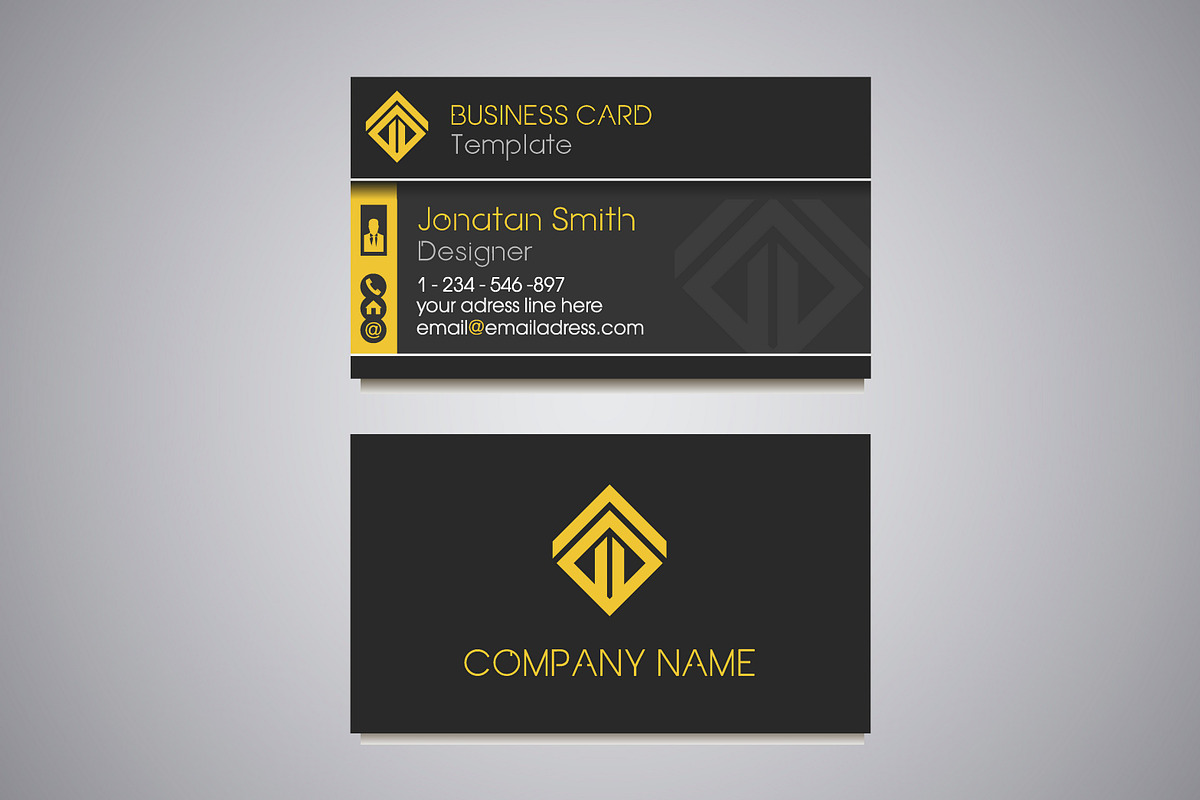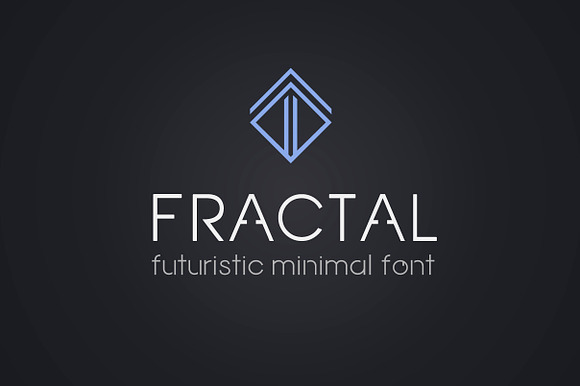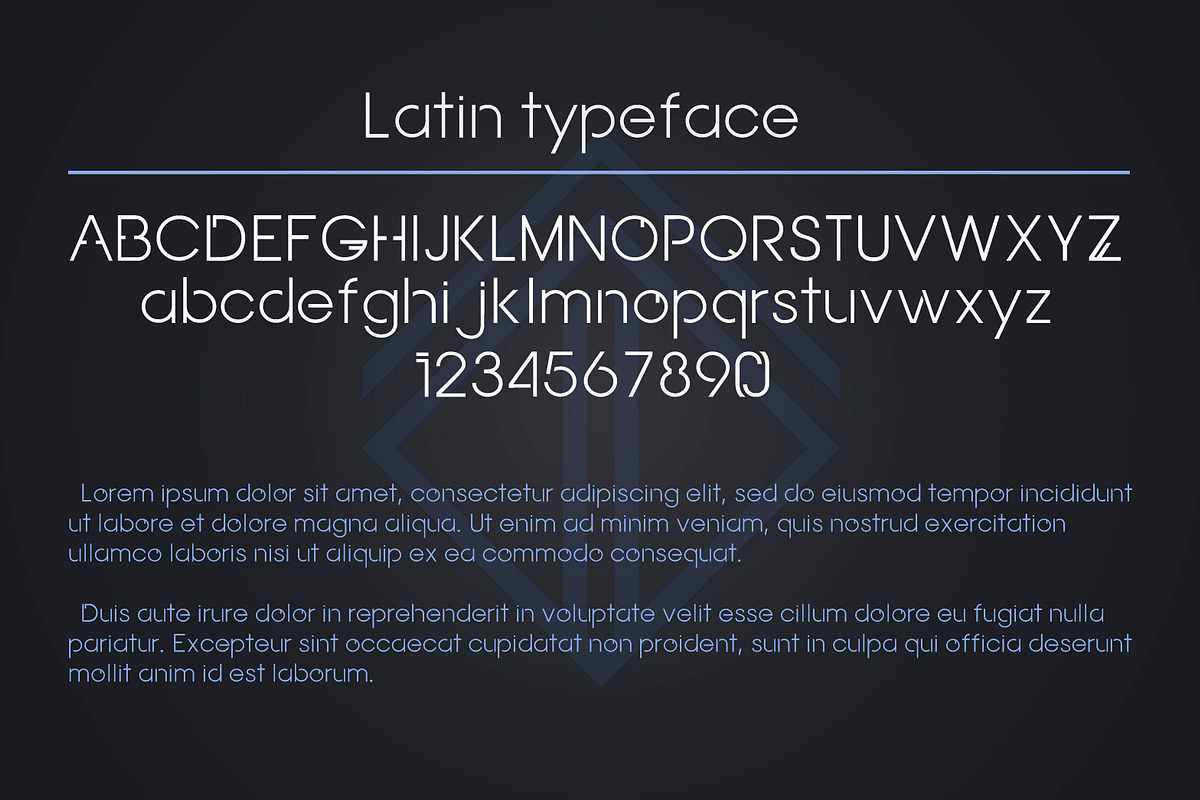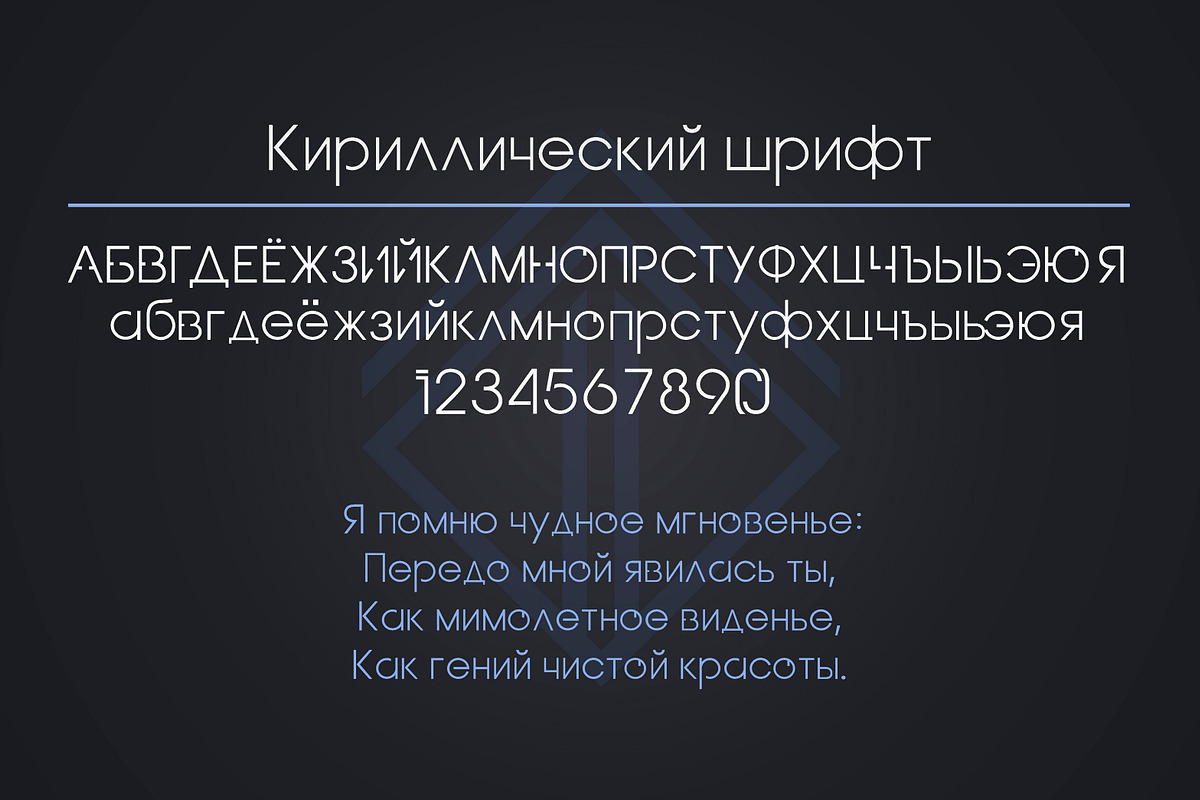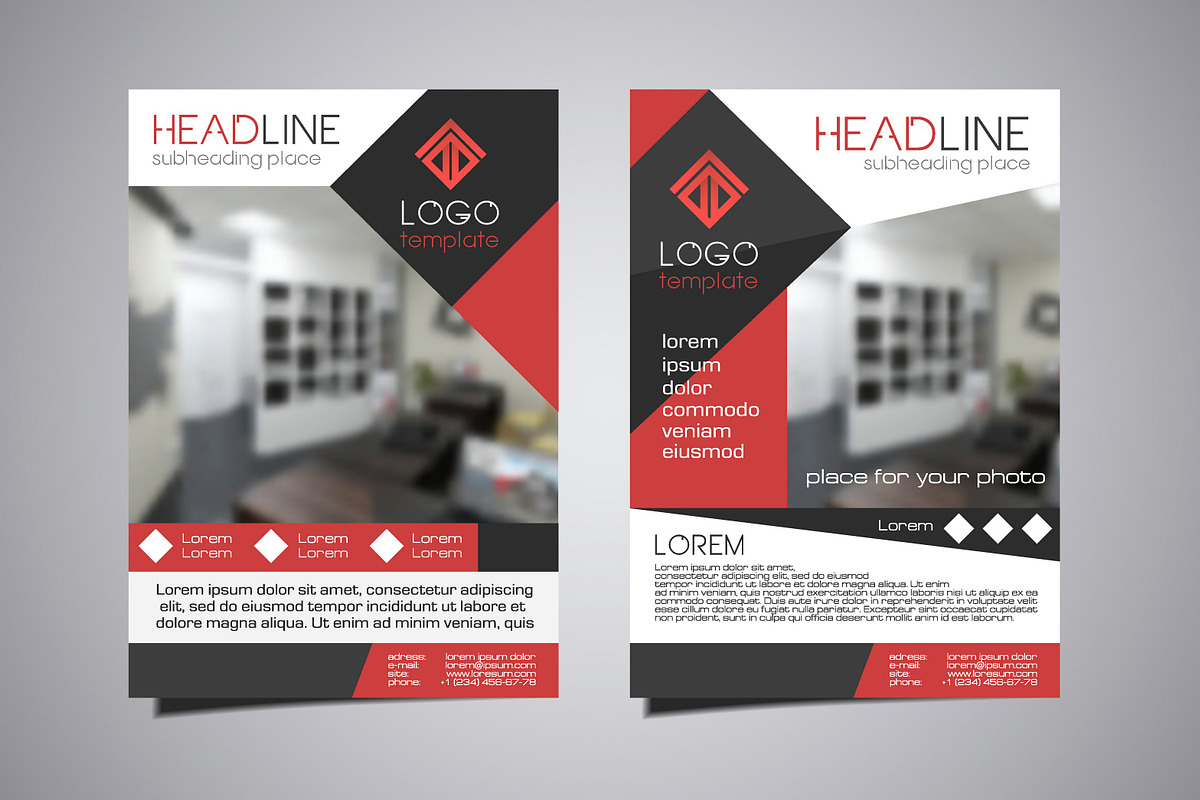
Fractal. Futuristic OTF font
Why Fractal. Futuristic OTF font is worth a look
Fractal. Futuristic OTF font by Fractal fonts & graphics fits naturally into Branding, posters, packaging, typography.